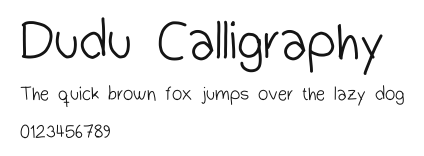
• Font Name: Dudu Calligraphy
• Full Font Name: Dudu Calligraphy
• Character Count: 172
About Dudu Calligraphy.ttf
Dudu Calligraphy.ttf is a modern, elegant sans-serif font designed for ultimate readability and visual harmony. Perfect for branding, headlines, web design, and print materials.